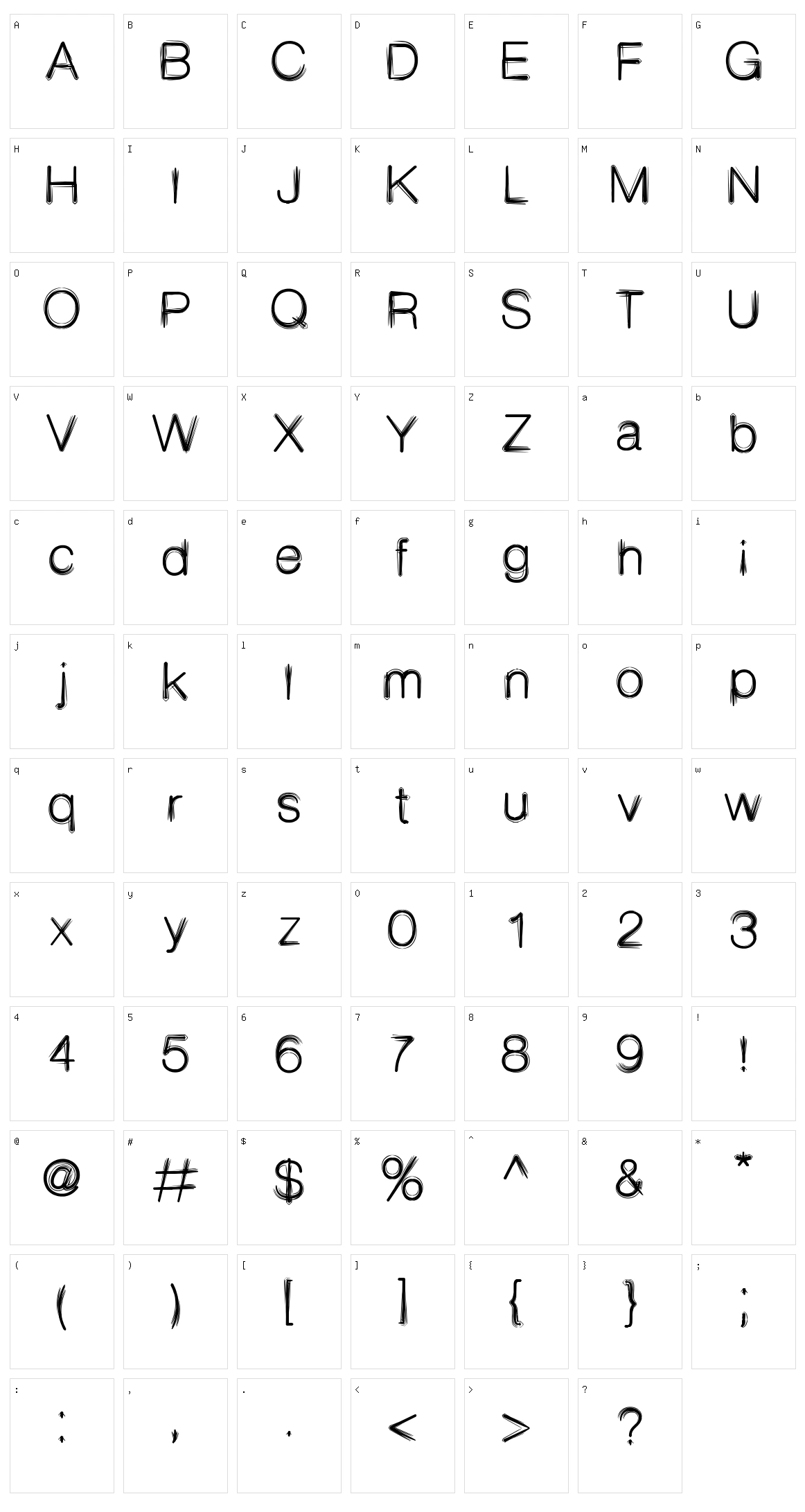
The free font Decibel is carefully designed by Jenna Mahaffy, showcasing a thoughtful balance of creativity and usability and falls under the Distorted font style. When you download the ZIP file, it contains only 102.22 KB of font files, making it lightweight and quick to download. Please review the license details below to understand permitted usage and distribution rights. If license information is not available, we recommend using this font for personal projects only or contacting the author directly for commercial usage permissions.